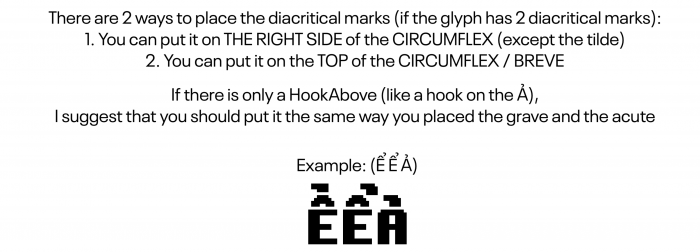
Good font. But in Cyrillic the tails of щ ц are usually the same as those of д. Also here д is done correctly, it stands on the same line and lowers the legs-tails, but in the Generic Pixelated Sans Font this letter is made incorrectly.
Thanks for the feedback, although with the excess of diacritical letters in this font (Includes ALL(!) Cyrillic characters) I doubt I'll have the patience to fix them all.
I sometimes also wanna changes certain aspects of the Latin script, but since alone 1k Glyphs are in the Latin script - I don't have the time to go over them all again.
@Maxi (Maxi_K): I understand that this is a large font, so there may be errors in it. But I spoke here only about two letters, щ ц, and maybe џ. I'm sure the other Cyrillic will be much less likely to be used. Still, I would then add that the ovals of ф should be the same height as the rest of the lowercase letters, and the oval of ъ does not have to be smaller than that of ь.
So I did finally fix the Cyrillic tails/descenders. Better? I'm unsure about some diacritics...
That's a good font, but for a Vietnamese user like me, it's not, some characters like Ẩ, Ẫ, Ẵ seem wrong, it was supposed to be like this: an example an Ẫ is  and a tilde on it, not à and a circumflex like this.
The site's desktop font (Lucida font family) doesn't have vietnamese characters, so it uses the combining marks. Since there are no anchor points, the marks overlap the letters
@BWM: Okay, I get it now, but I still need to publish this for the creator to repair.
Maybe this image can help you.
@Kiên Trung (trungdangTrung Kiên) I know it's been literally a year, but I finally got around to changing it - you've sent me down a rabbit hole and I whole new appreciation for Vietnamese typography, orthography, and dialectology!